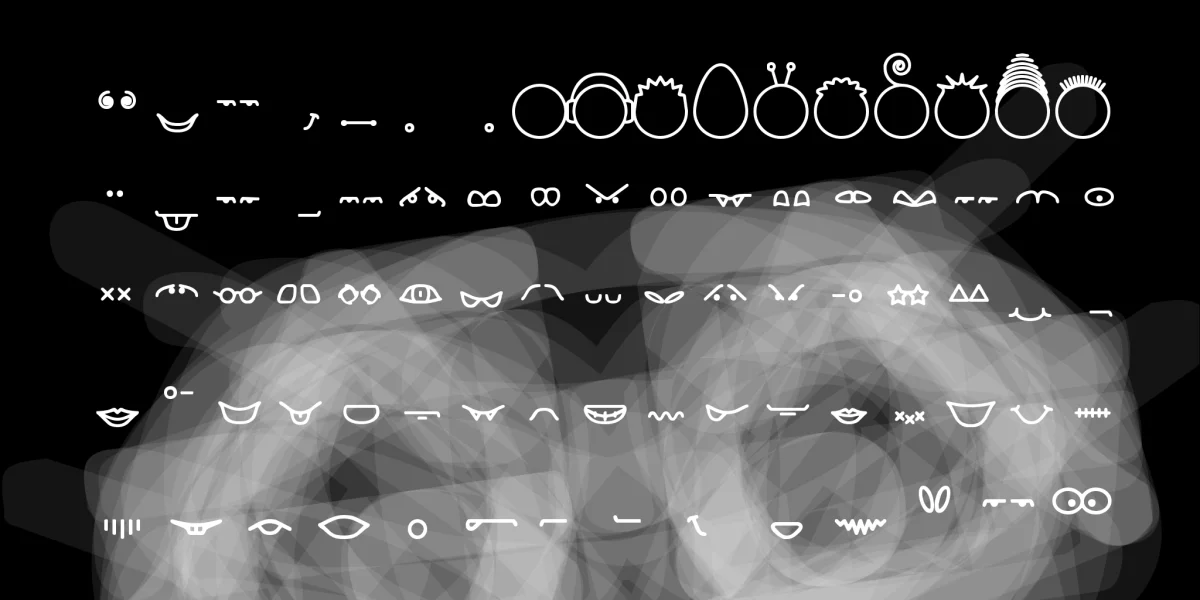
With this Font you can make Tons of different Smilieys. All you need to do is choose what Head shape you want (10 of them), then choose what Eyes you want to use (36 of them), then choose what Mouth you want to use (36 of them).
1] To choose a Head shape use 0123456789
2] After you've chosen a Head shape choose some Eyes by using all Upper-Case Letters A to Z and also _+|{}:"?
3] After you've chosen the Eyes you want to use choose a Mouth by using all Lower-Case Letters a to z and also -=[];',./
4] If you want to make another Smiley, Press SPACE. You'll be able to make another one to the right of the one you've just made. If you happen to use 1 as a head for your smiliey, use ~ for a larger Space.